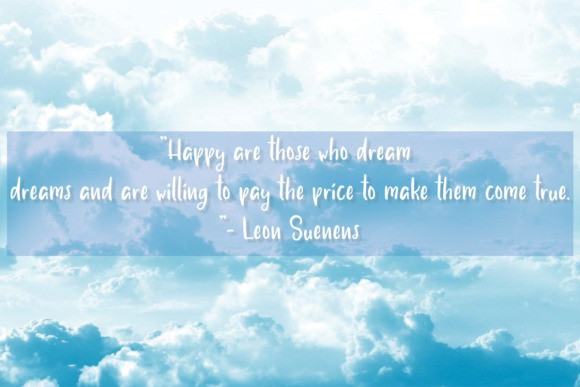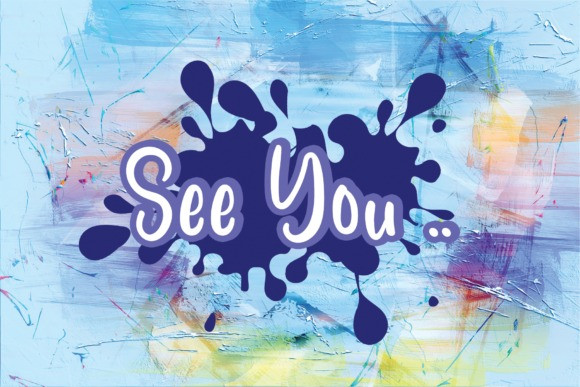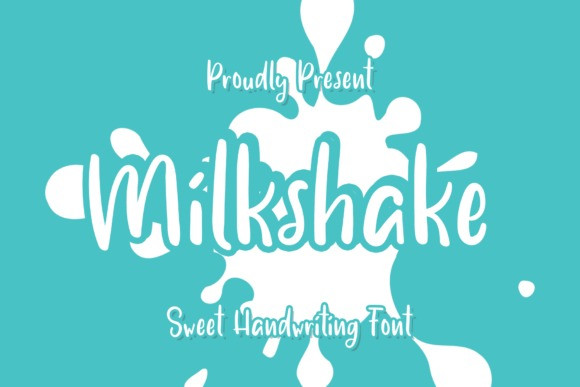
Milkshake Display Typeface
Milkshake is a sweet and simple handwritten font. It can be used on various design ideas, such as crafting, digital designing, presentations or greeting cards making.